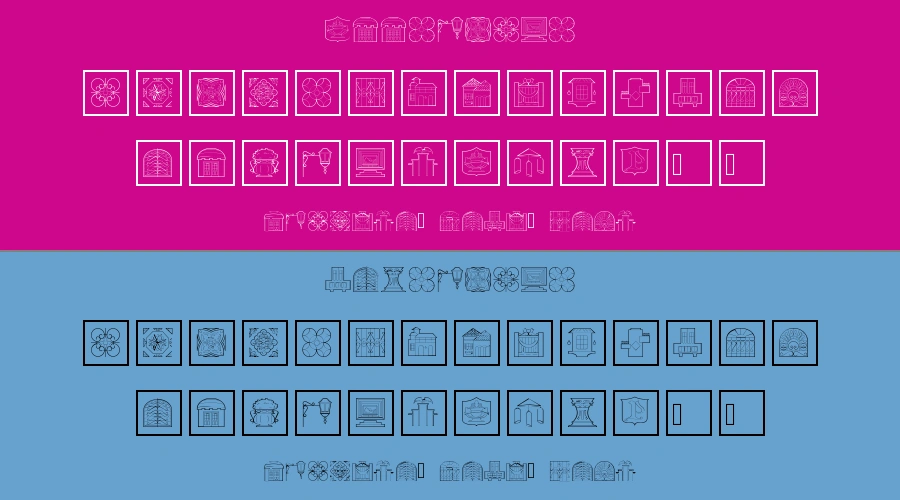
About Pradito Moli Font
Pradito Moli Font embodies typographic excellence through its masterful combination of graceful transitions and recall value. Created for technical documentation, this typeface delivers exceptional functionality and reliability across all applications. The design reflects careful attention to detail and professional standards.
Advanced capabilities include distinctive alternates and versatile isolated forms, giving designers creative control. When used in retail environments, Pradito Moli Font exhibits remarkable reproduction fidelity. The harmonious balance between x-height proportion and design lineage sets this typeface apart.
Pradito Moli Font |